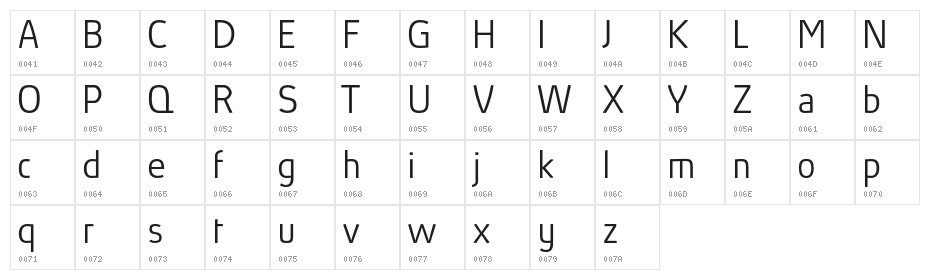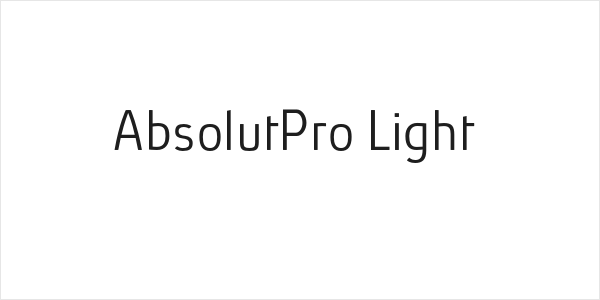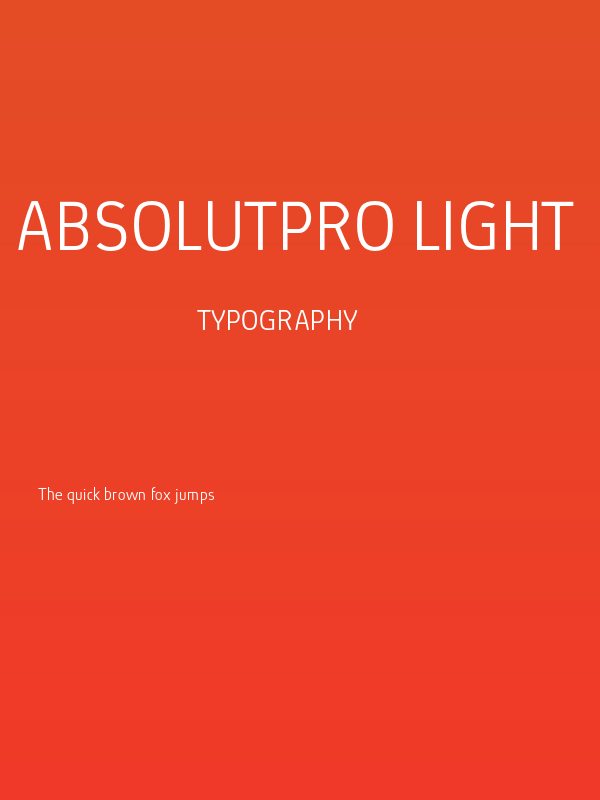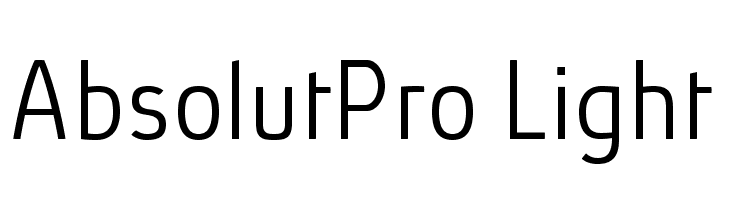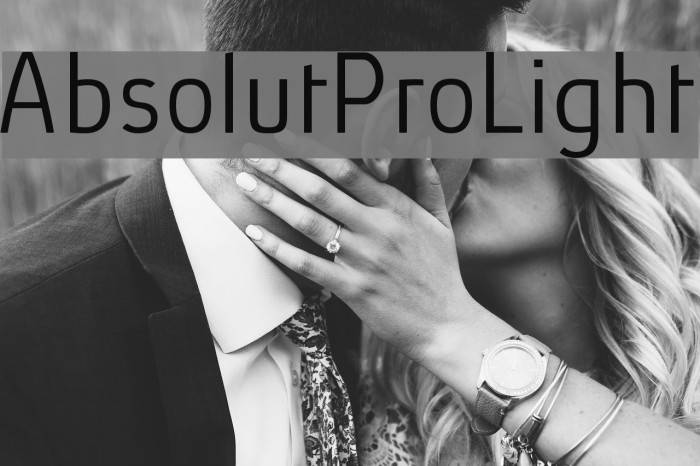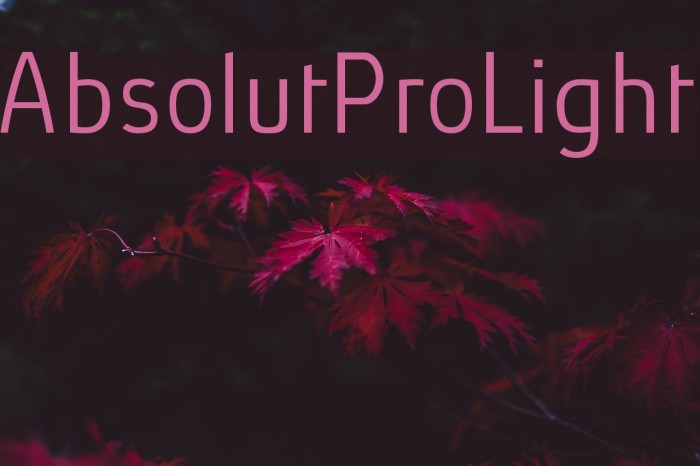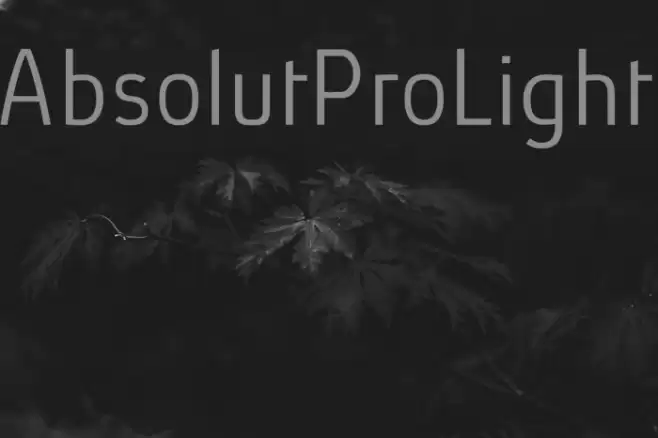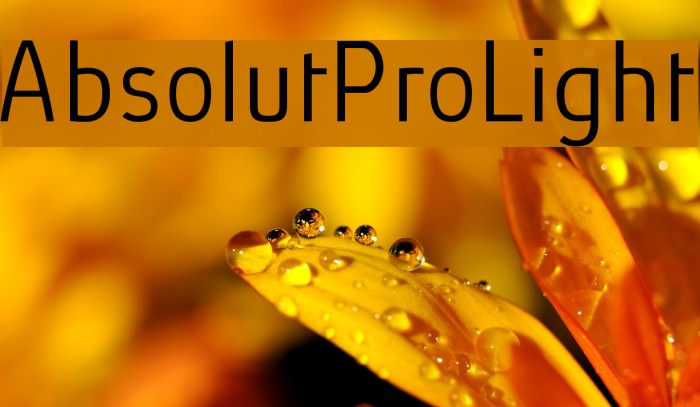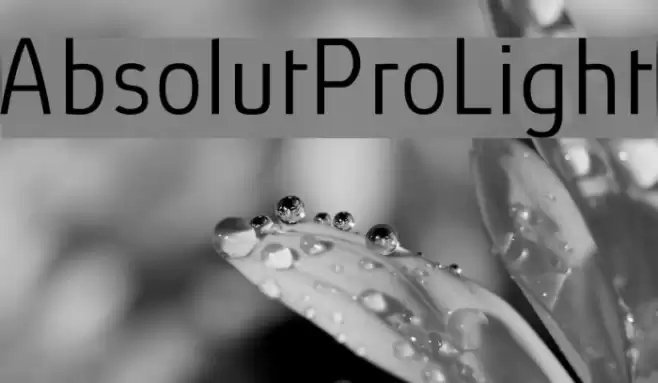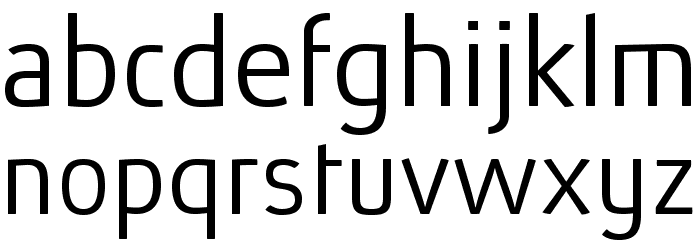
AbsolutPro-Light Font
AbsolutPro-Light Description
This font features a clean and modern sans-serif design with a light weight, offering a sleek and contemporary appearance. The characters are well-proportioned with a slightly condensed width, providing a harmonious and balanced look. The uppercase letters are tall and elegant, while the lowercase letters maintain a consistent style with rounded edges that add a touch of softness. The numerals are clear and easy to read, making them suitable for various applications. The special characters are designed to complement the overall aesthetic, ensuring versatility in usage.
| Use Case | Headlines, Body text, Logos |
| Proposed Projects | Ideal for branding, web design, corporate materials, and minimalist layouts. |